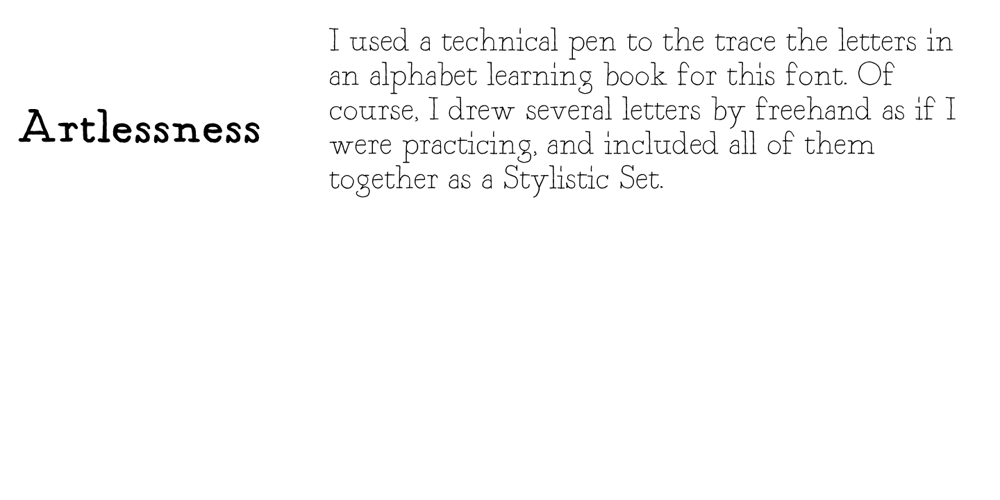
Artlessness
Artlessness font
Artlessness Font Family was designed by Shuji Kikuchi and published by sugargliderz. Artlessness contains 3 styles and family package options. I used a technical pen to the trace the letters in an alphabet learning book for this font. Of course, I drew several letters by freehand as if I were practicing, and included all of them together as a Stylistic Set.